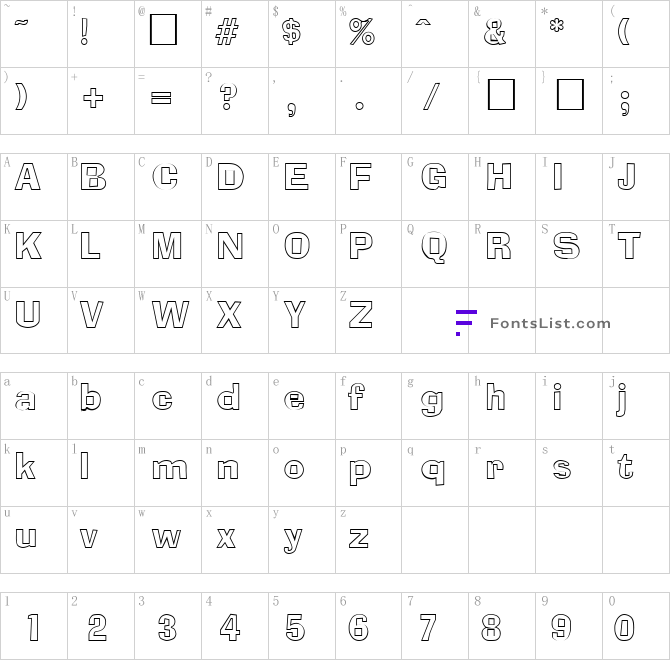
- Font Name:AdLibOutline
AdLibOutline-Regular.ttf is a very beautiful artistic font, AdLibOutline-Regular.ttf is widely used in the design and printing of various books and pictures,AdLibOutline-Regular.ttf has a strong visual impact,AdLibOutline-Regular.ttf is a commonly used font in newspapers, magazines and books, and is used in posters, e-commerce Poster design, store design, logo design, font design and other fields.AdLibOutline-Regular.